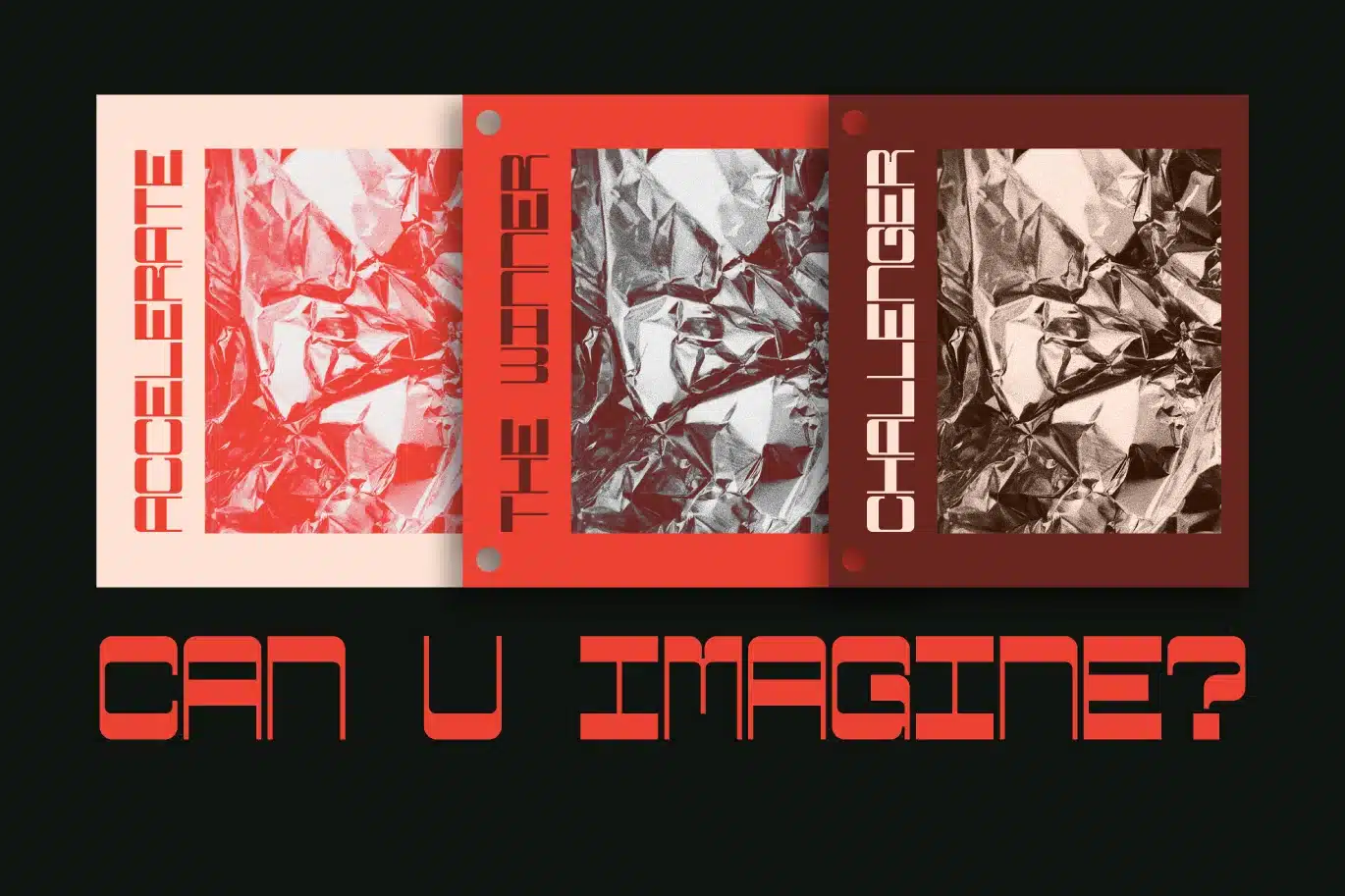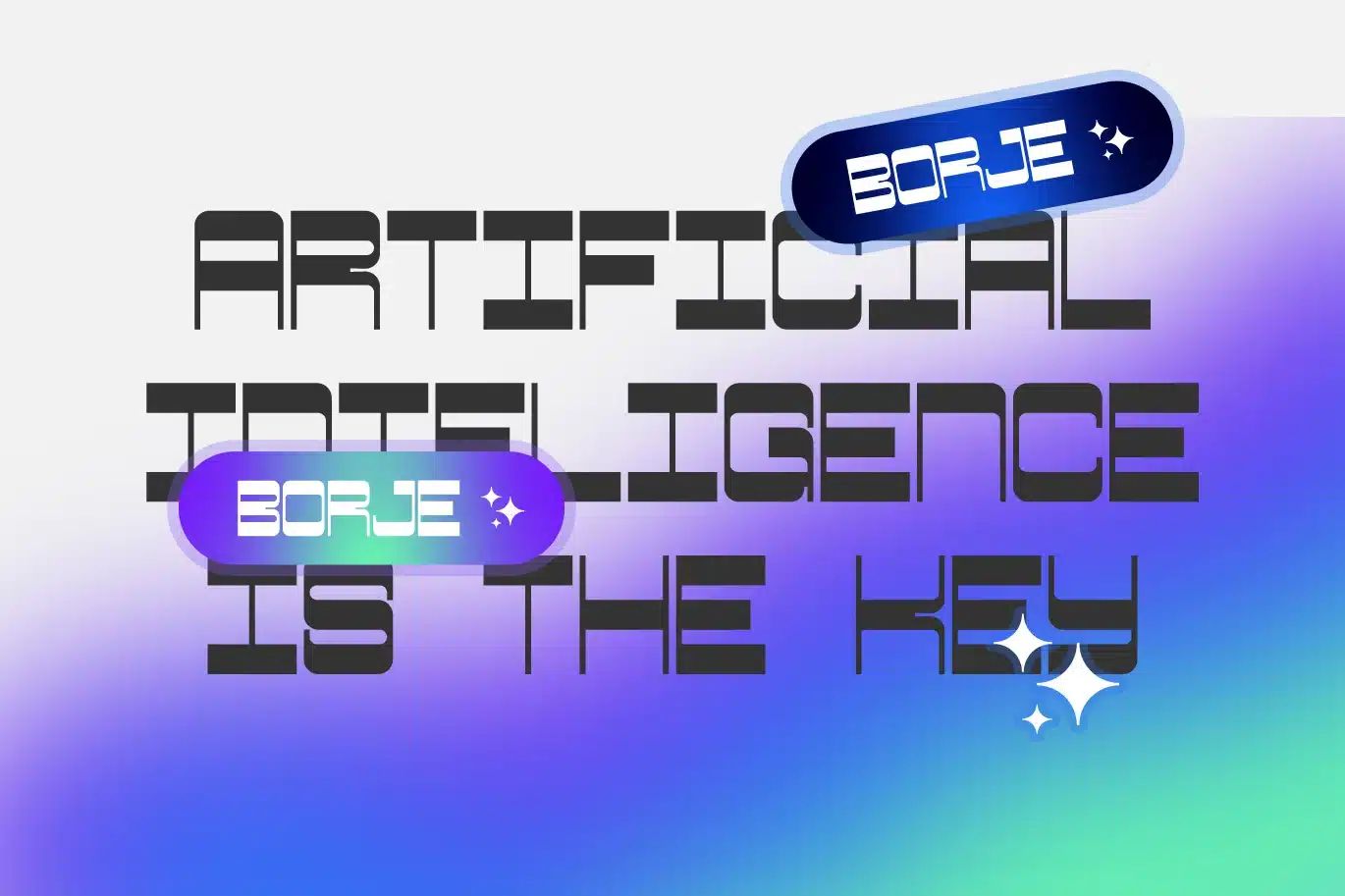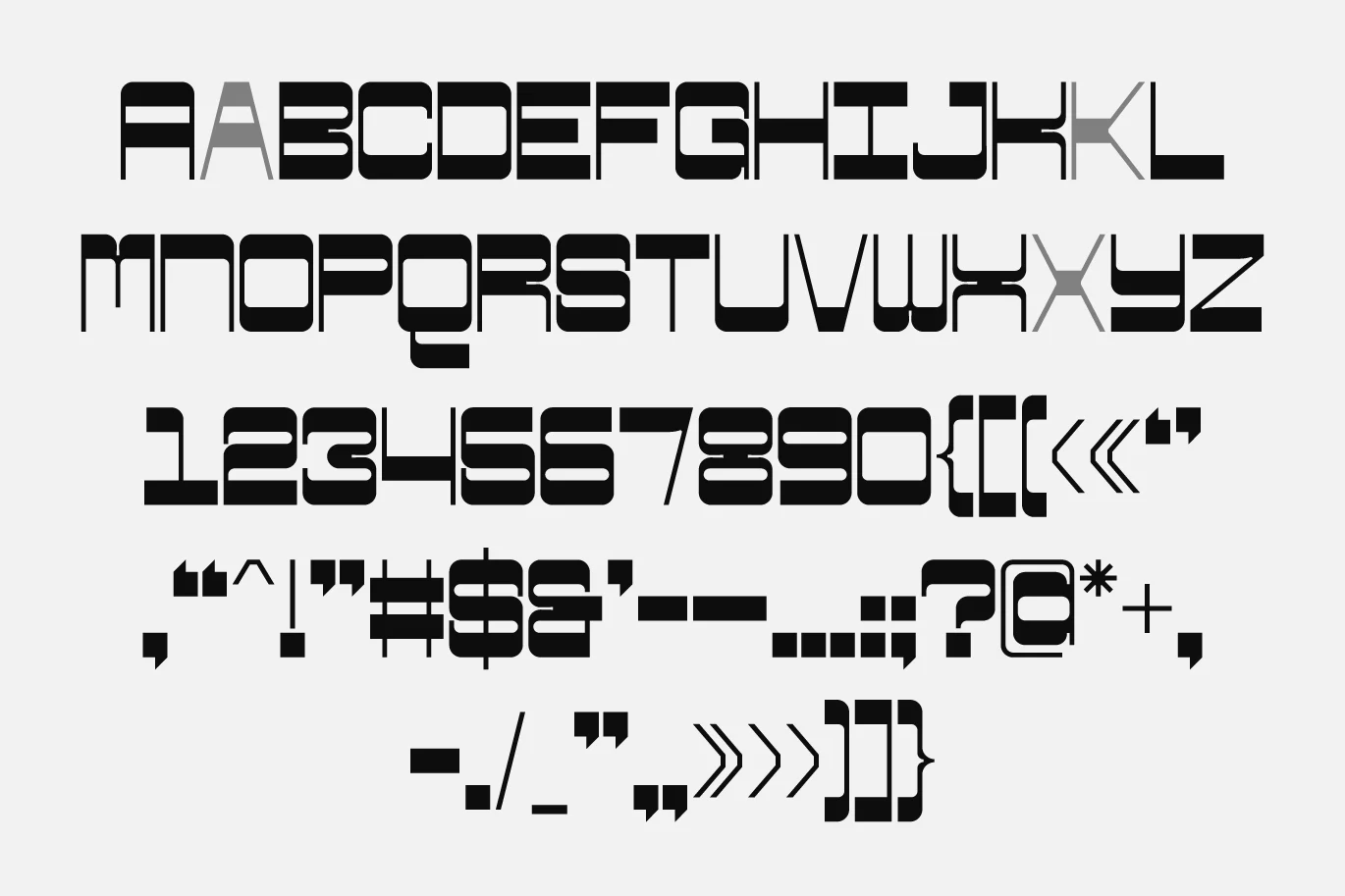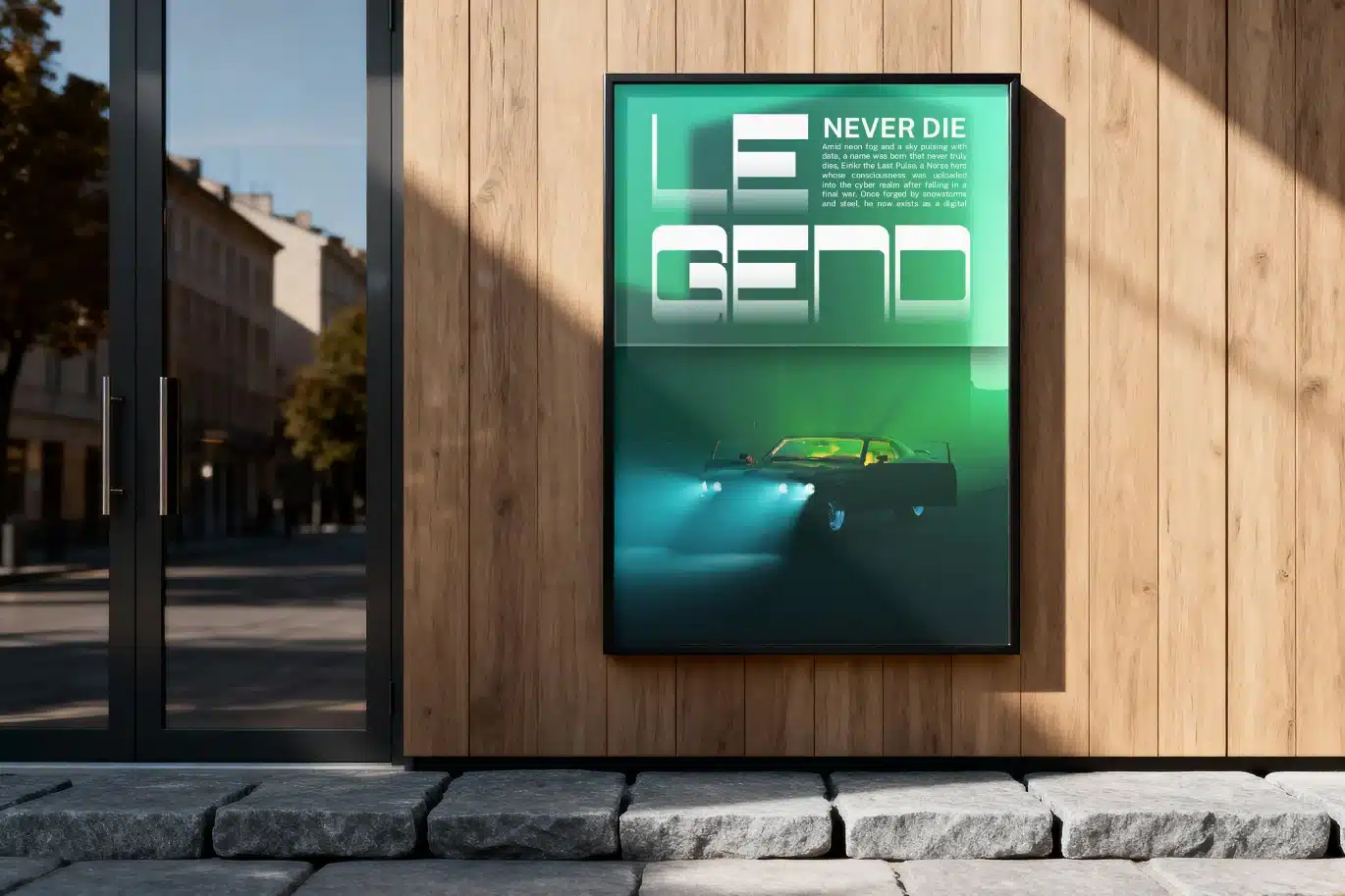
Borje – Futuristic Modular Display Font
Borje is a modern futuristic display font featuring a bold modular construction and geometric styling. Designed for high-impact visuals, it combines clean curves with sharp structural elements to create a unique and contemporary typographic voice.
This font is ideal for projects that require a strong visual presence, including branding, editorial layouts, technology themes, and digital interfaces.
Borje stands out with its experimental yet structured design, making it suitable for both creative exploration and professional use.